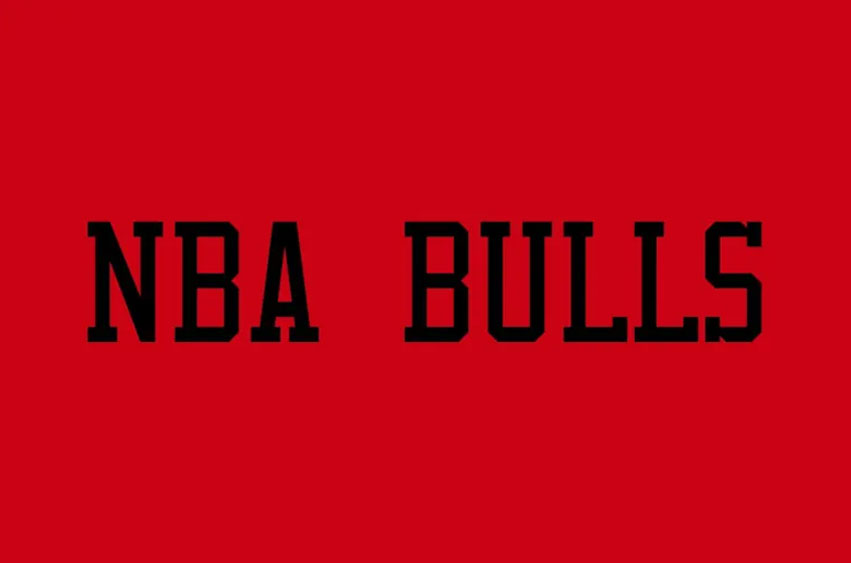
Nba Bulls Font
Nba Bulls Font is used for lettering on Chicago Bulls jerseys and is not actually used during official games; rather it resembles fonts commonly used to write out numbers, letters and player names.
Nick Whitford and Dennis “LMUpepbander” Ittner designed the letters and numbers, while Eriq P. Jaffe designed TTF fonts from these designs.